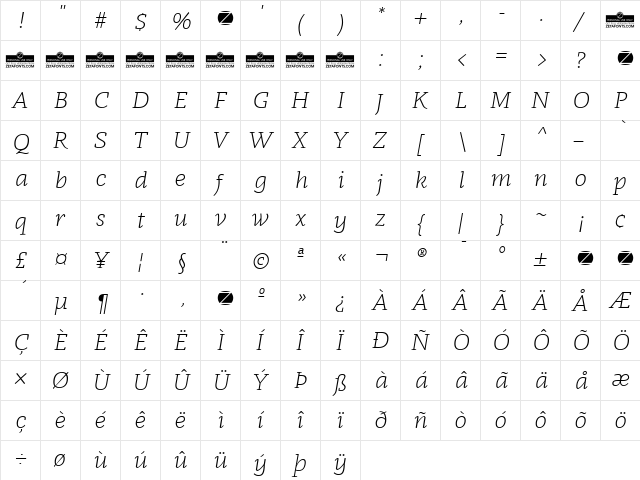
Radcliffe Text Light Italic Font Preview
Design Context for Radcliffe Text Typeface
Radcliffe Text offers clean, dependable letterforms without strong stylistic allegiance, making it a practical choice for designers who need flexibility. Its italic angle brings a sense of urgency and motion to the letterforms. Its slender proportions lend an understated elegance to any composition.
Pro Tip: Try Radcliffe Text for annotation and caption copy alongside an upright companion — the contrast in angle creates a dynamic but ordered typographic system.